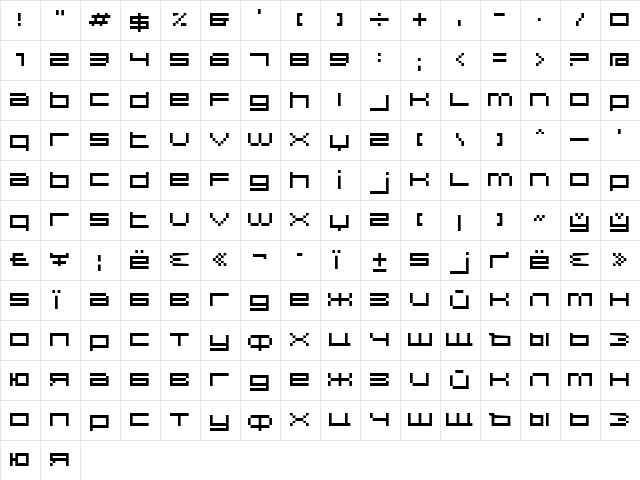
DS Hiline Regular
| Designer | Nikolay Dubina | D-Studio (Moscow) |
Design Context for DS Hiline Typeface
DS Hiline takes a measured approach to typography — its balanced proportions and neutral character make it a reliable workhorse for both digital and print work.